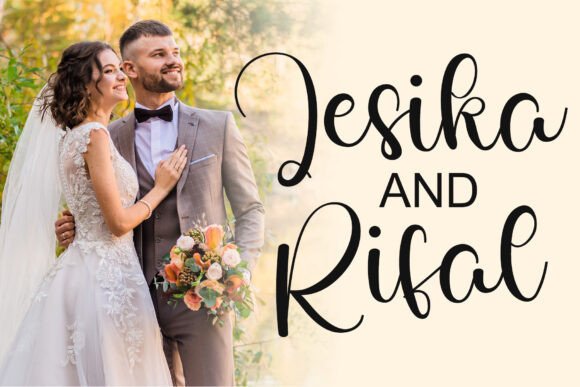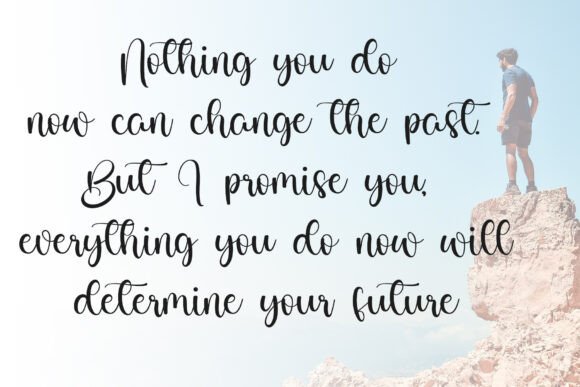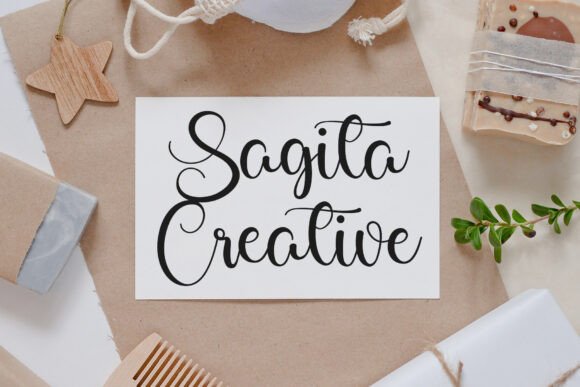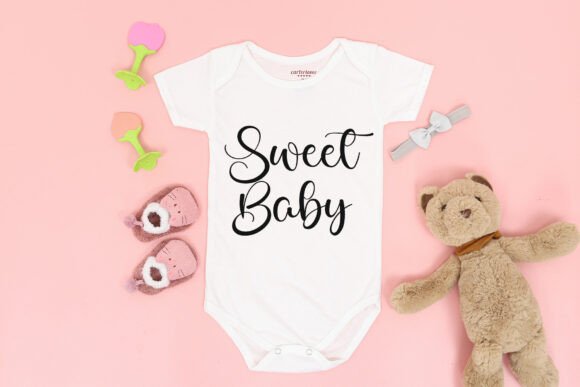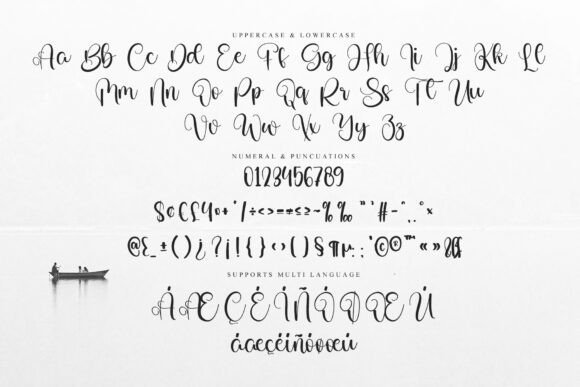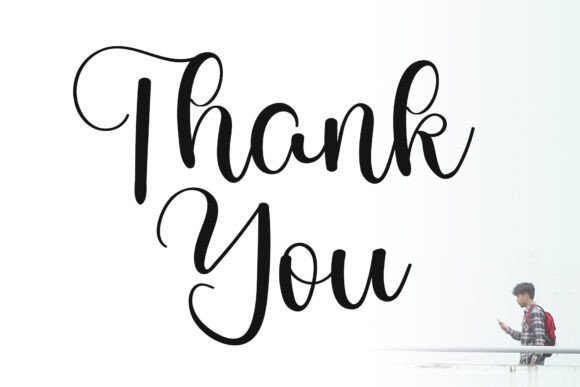
The Sweet Spot: Discovering the Charm of Butter Biscuit Font
I’ll never forget the moment I stumbled upon the perfect font for a client’s dessert menu. I had been searching for hours, trying out different fonts, but none seemed to capture the warm and inviting vibe I was looking for. That was until I discovered Butter Biscuit – a whimsically charming handwritten script font that blends playfulness with refined elegance. In this article, I’ll share my experience with this beautiful font, its features, and how to make the most of it in your designs.
A Honest Review: The Good and the Quirks
What I Love About Butter Biscuit ✨
- ✅ Smooth, flowing strokes that give it a warm and cozy feel
- ✅ Perfect blend of playfulness and elegance, making it versatile for various design projects
- ✅ Easy to read, even in smaller sizes, making it perfect for body text or captions
- ✅ Extensive OpenType features, including glyphs and stylistic alternates, allowing for creative freedom
- ⚠️ Some users may find the font a bit too script-heavy for certain projects, such as corporate branding or formal invitations
- ⚠️ Limited availability of condensed or bold weights, which may limit its use in certain design applications
The Story Behind Butter Biscuit: Designer Inspiration
The story behind Butter Biscuit is one of passion and creativity. Inspired by the warmth and comfort of freshly baked cookies, the designer aimed to create a font that captures the essence of sweet treats and special moments. With its smooth, flowing strokes and elegant charm, Butter Biscuit is the perfect addition to any design project that requires a touch of whimsy and sophistication.
Q: What is the best way to use Butter Biscuit in my designs?
A: Butter Biscuit is a versatile font that can be used in a variety of design applications, including branding, invitations, logos, and more. Experiment with different OpenType features and glyphs to find the perfect fit for your project.